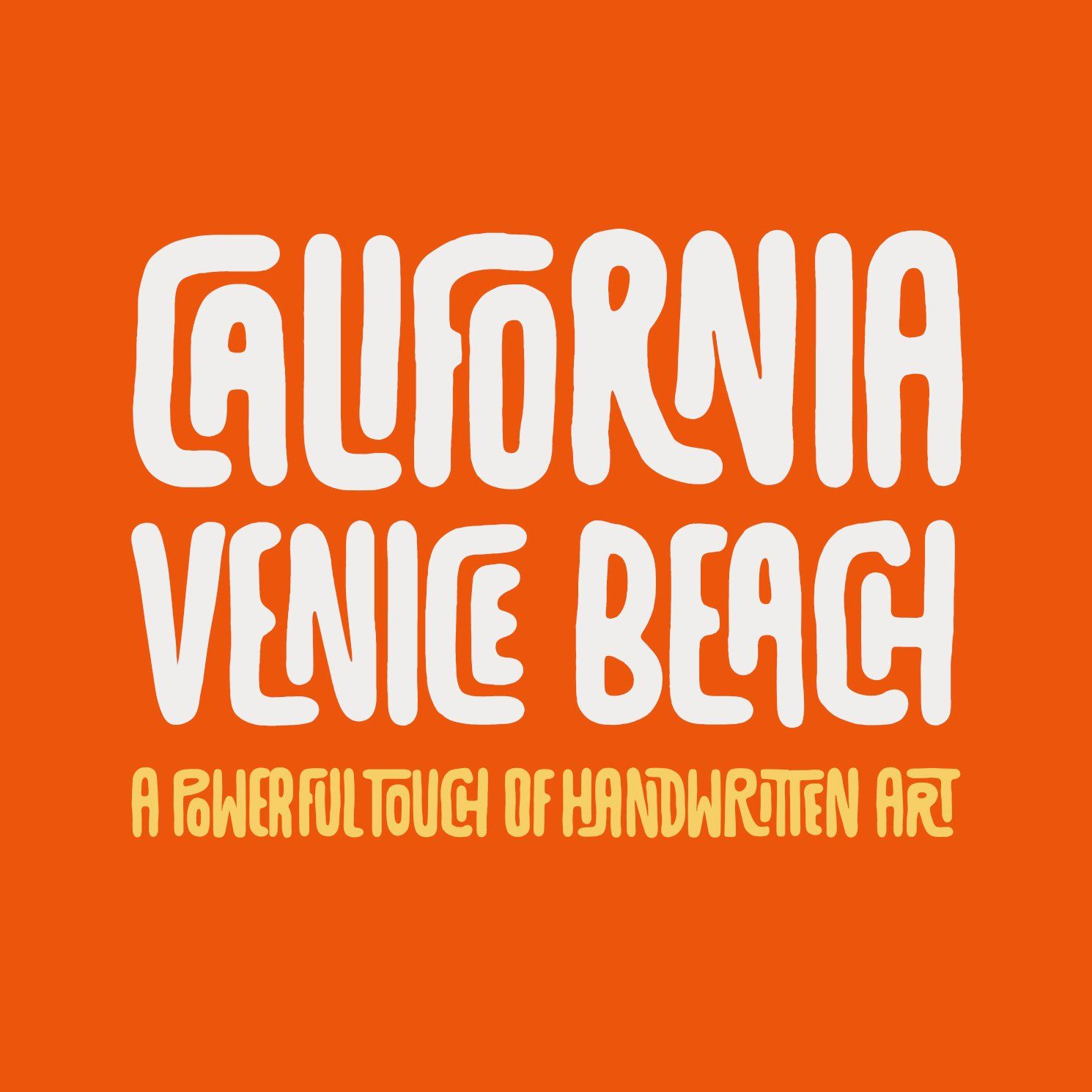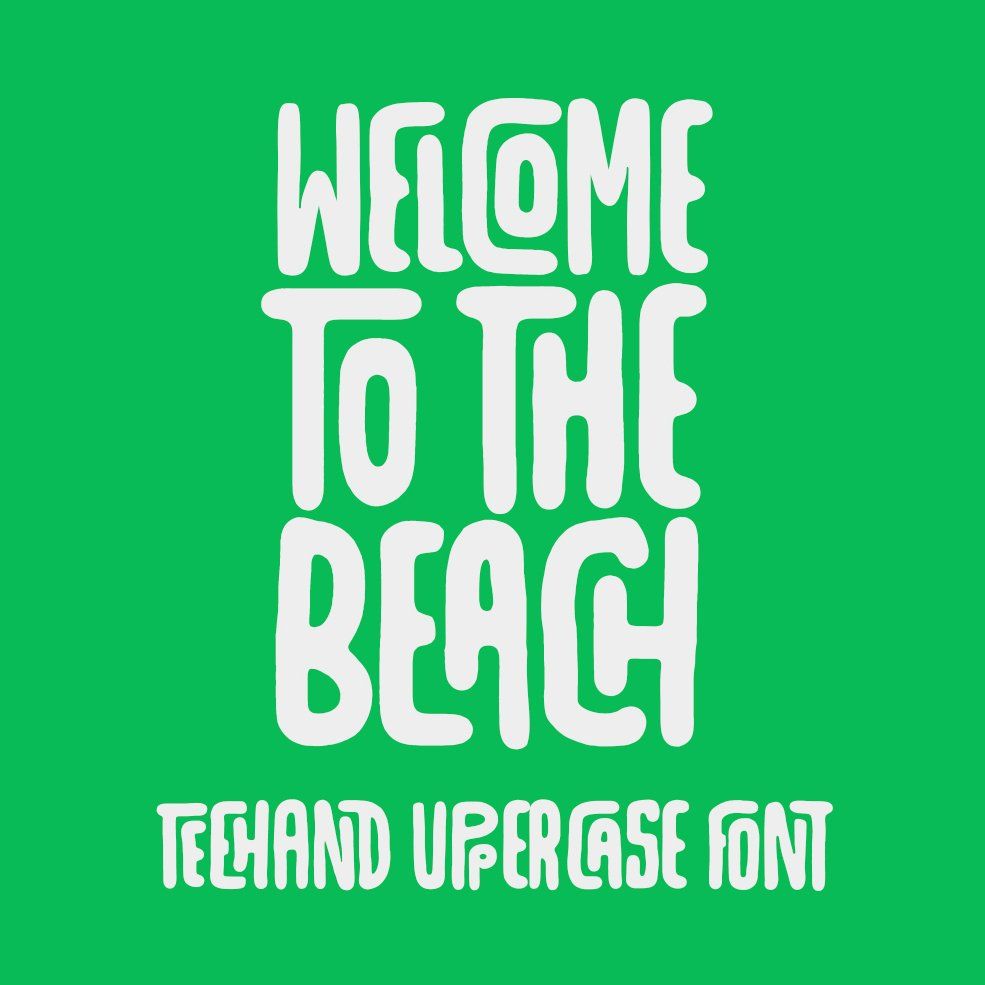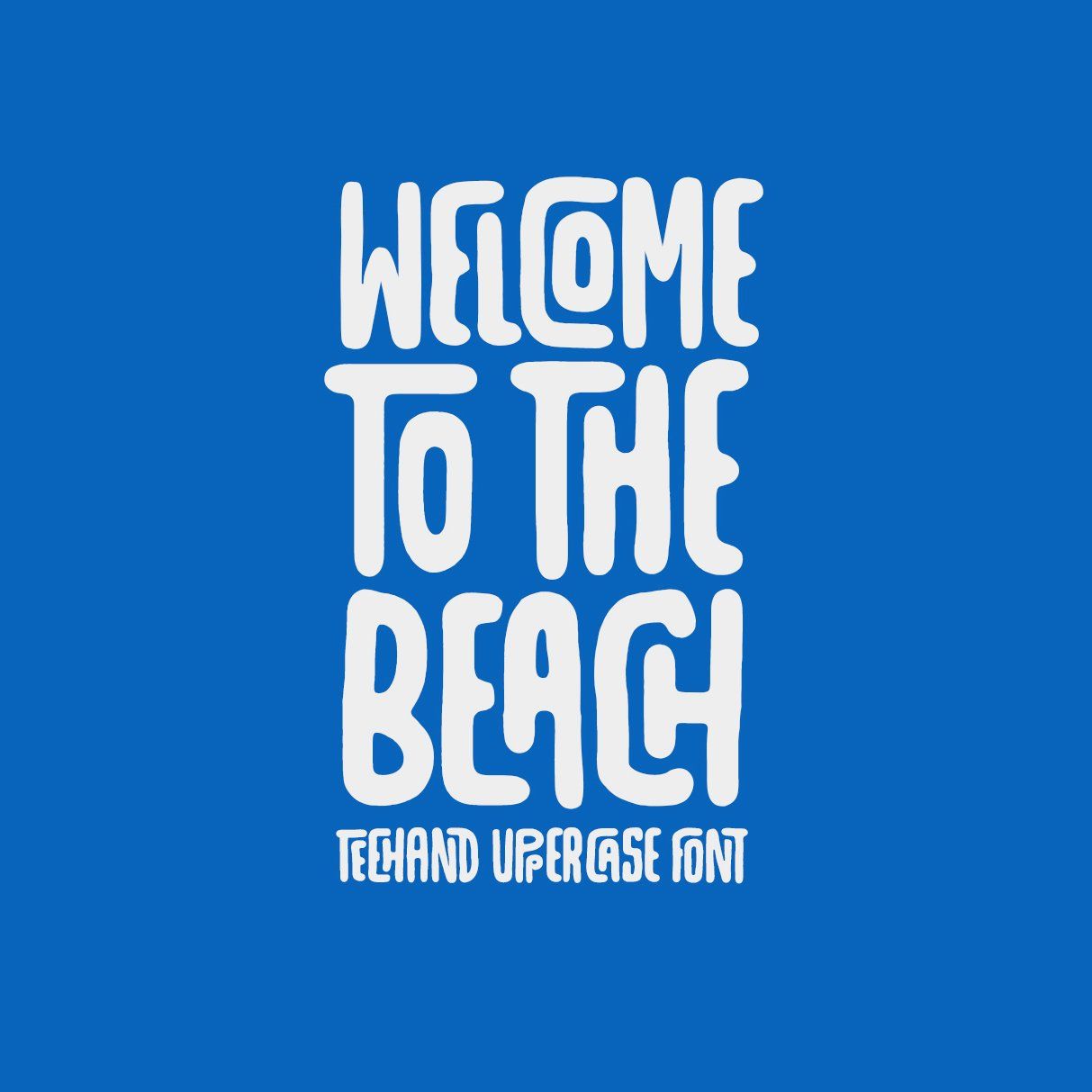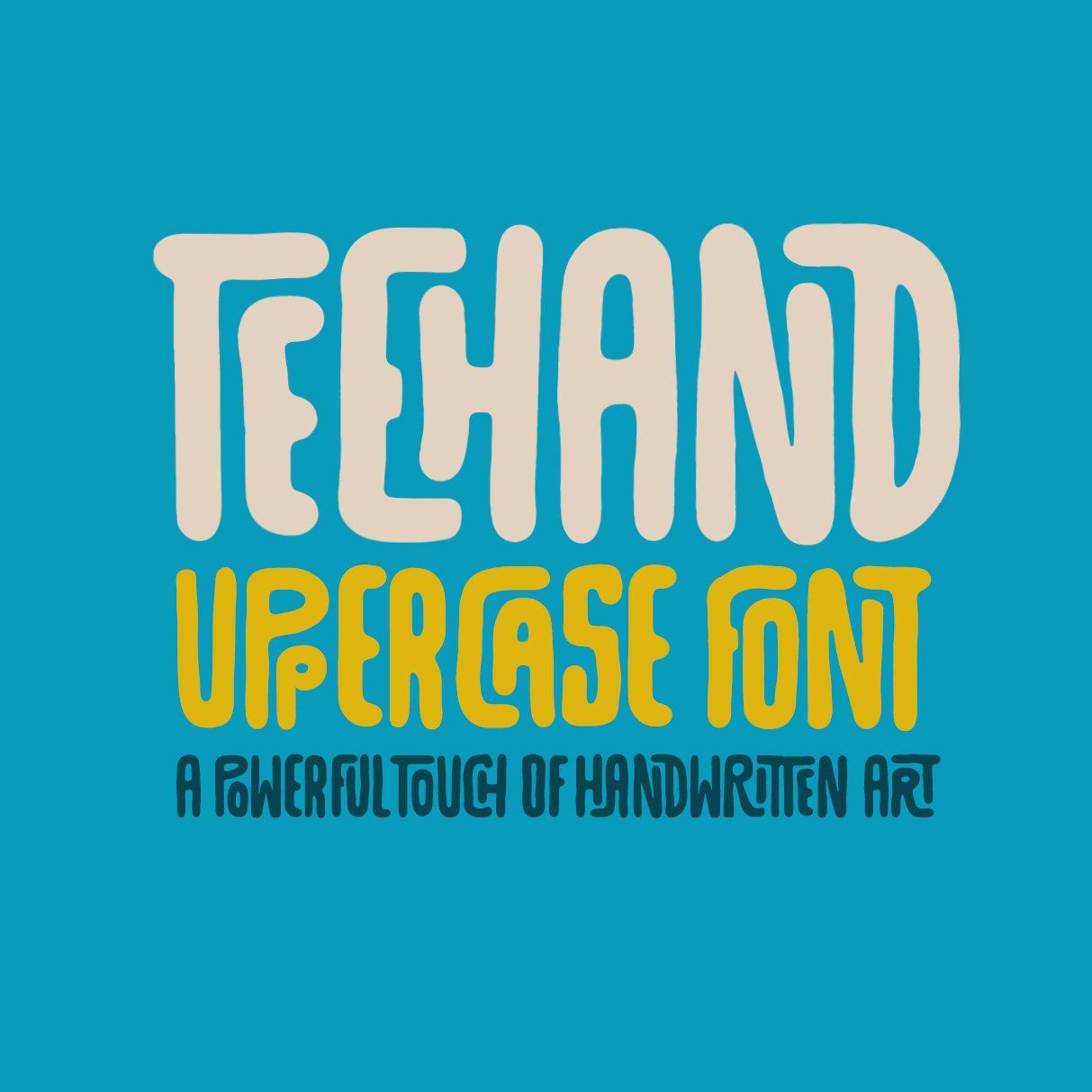
Teehand Uppercase is a bold and modern all-caps font, designed to make your titles pop! Perfect for posters, t-shirts, logos, and creative projects that need a strong visual punch. Add personality and style to your design with this unique display typeface.